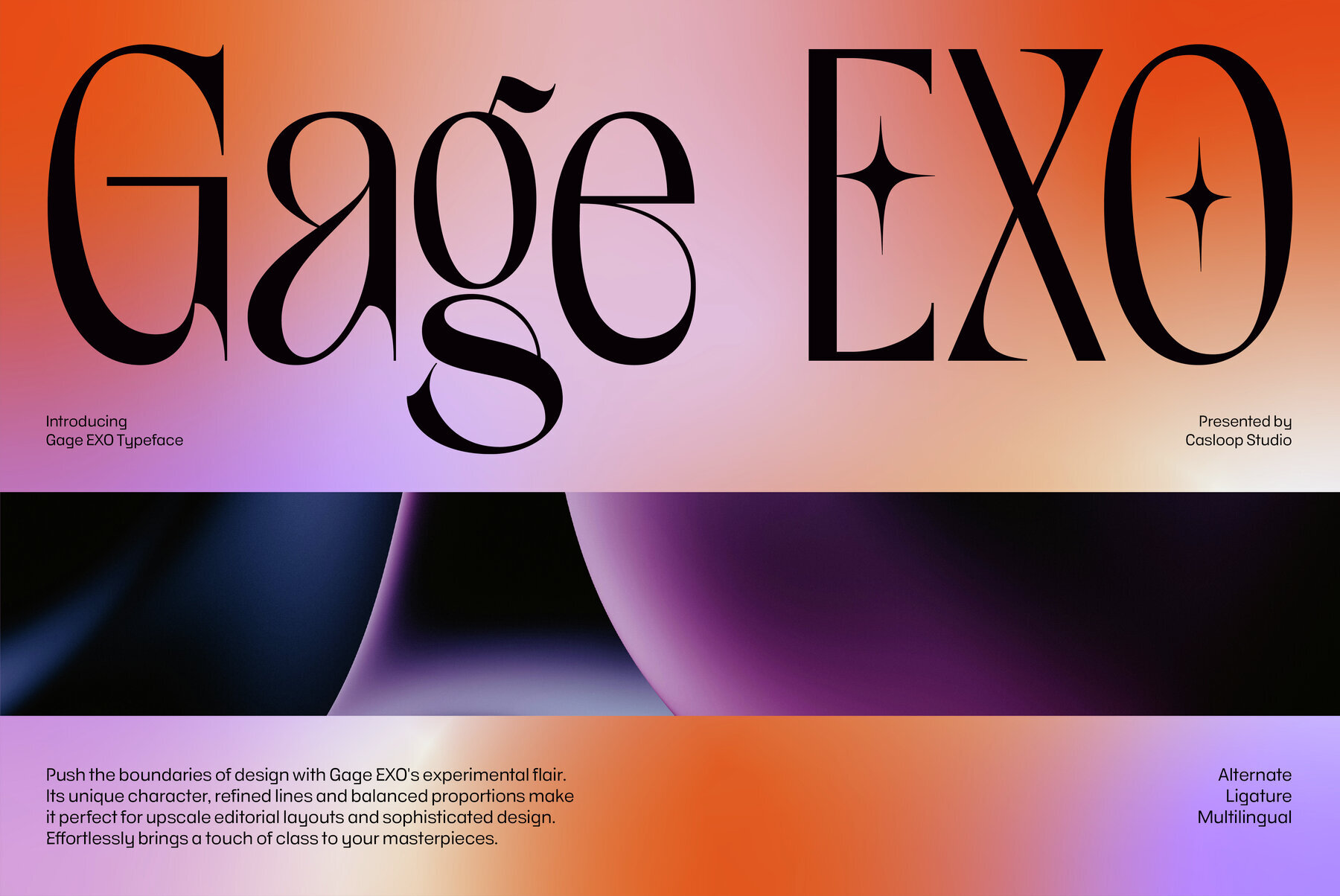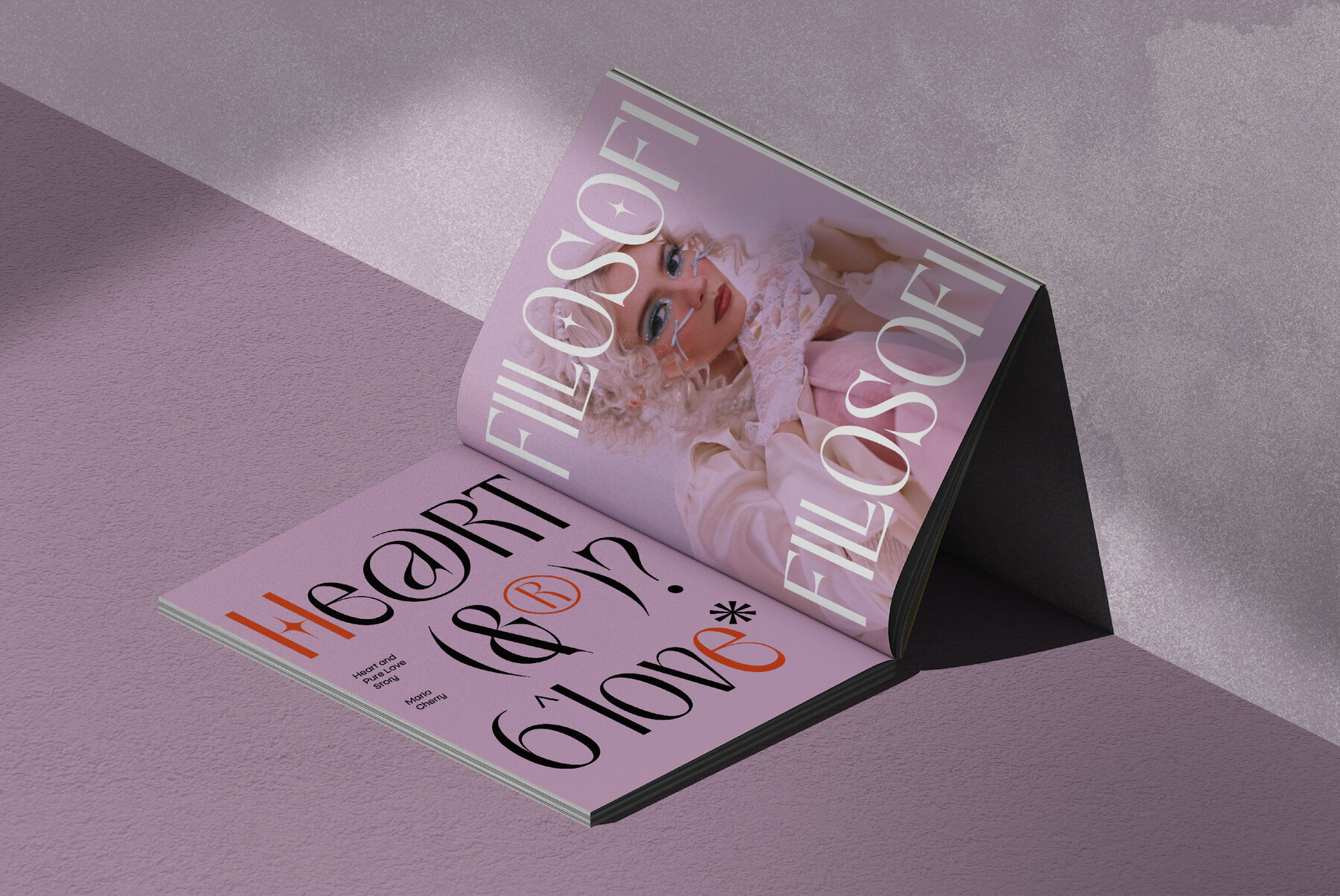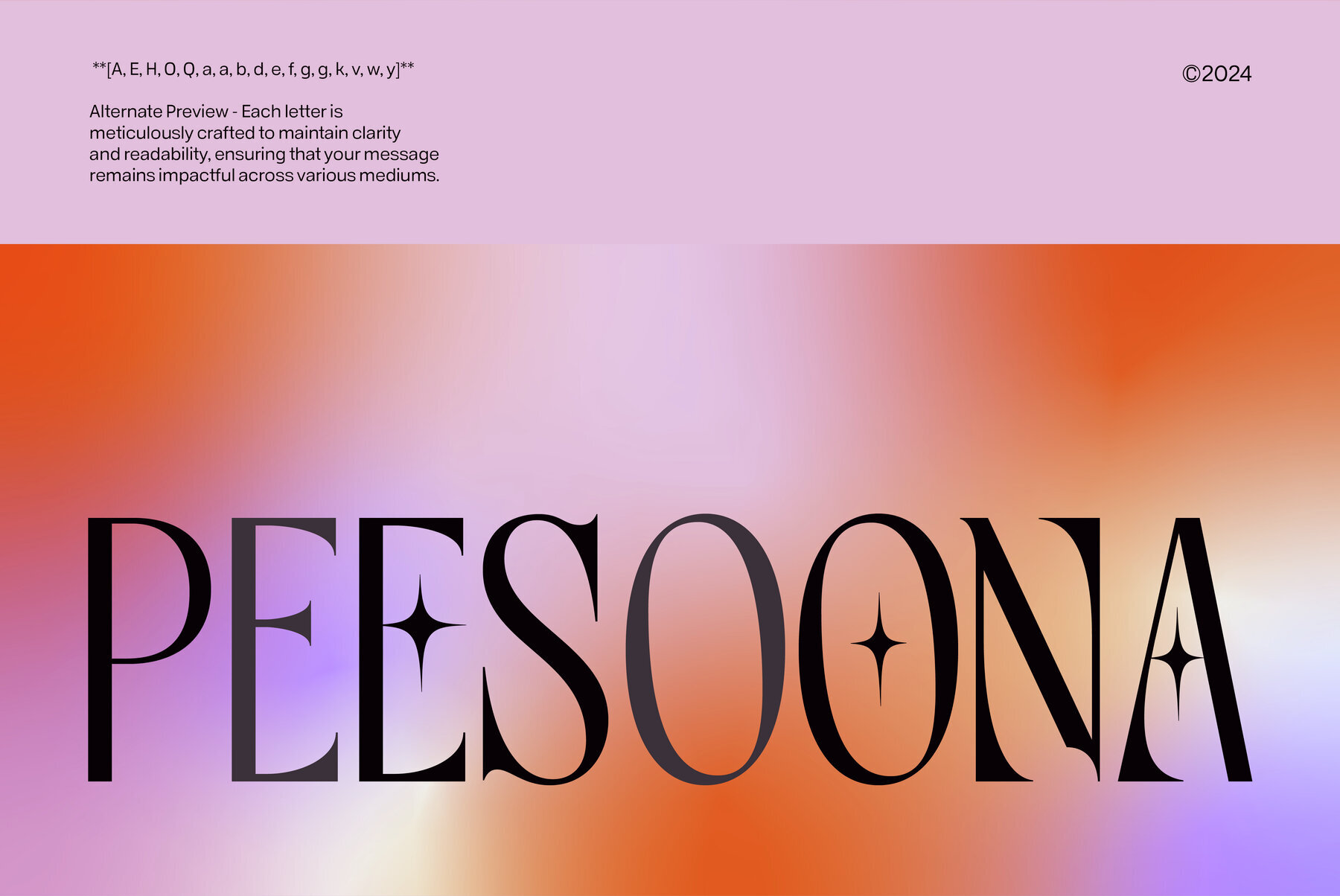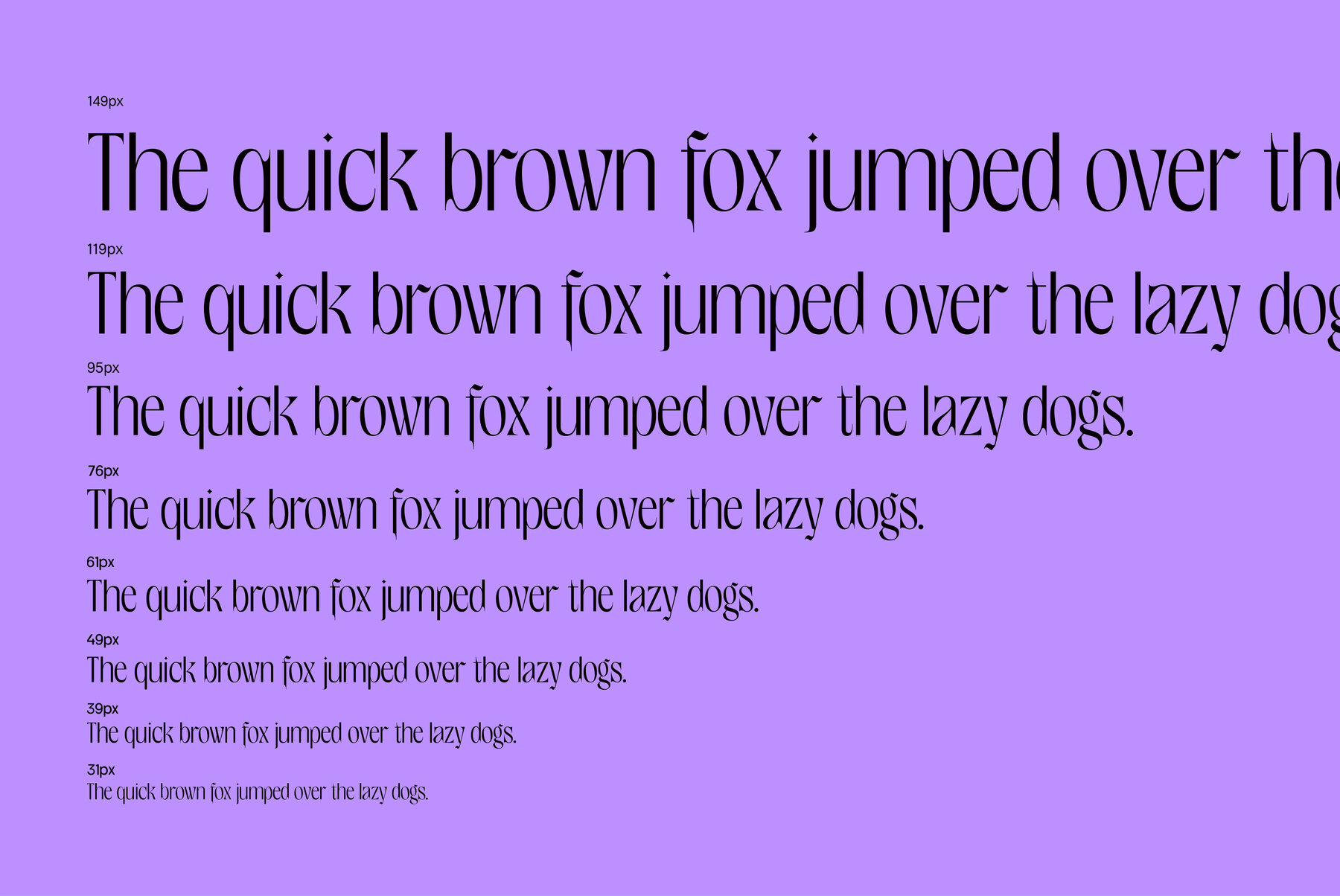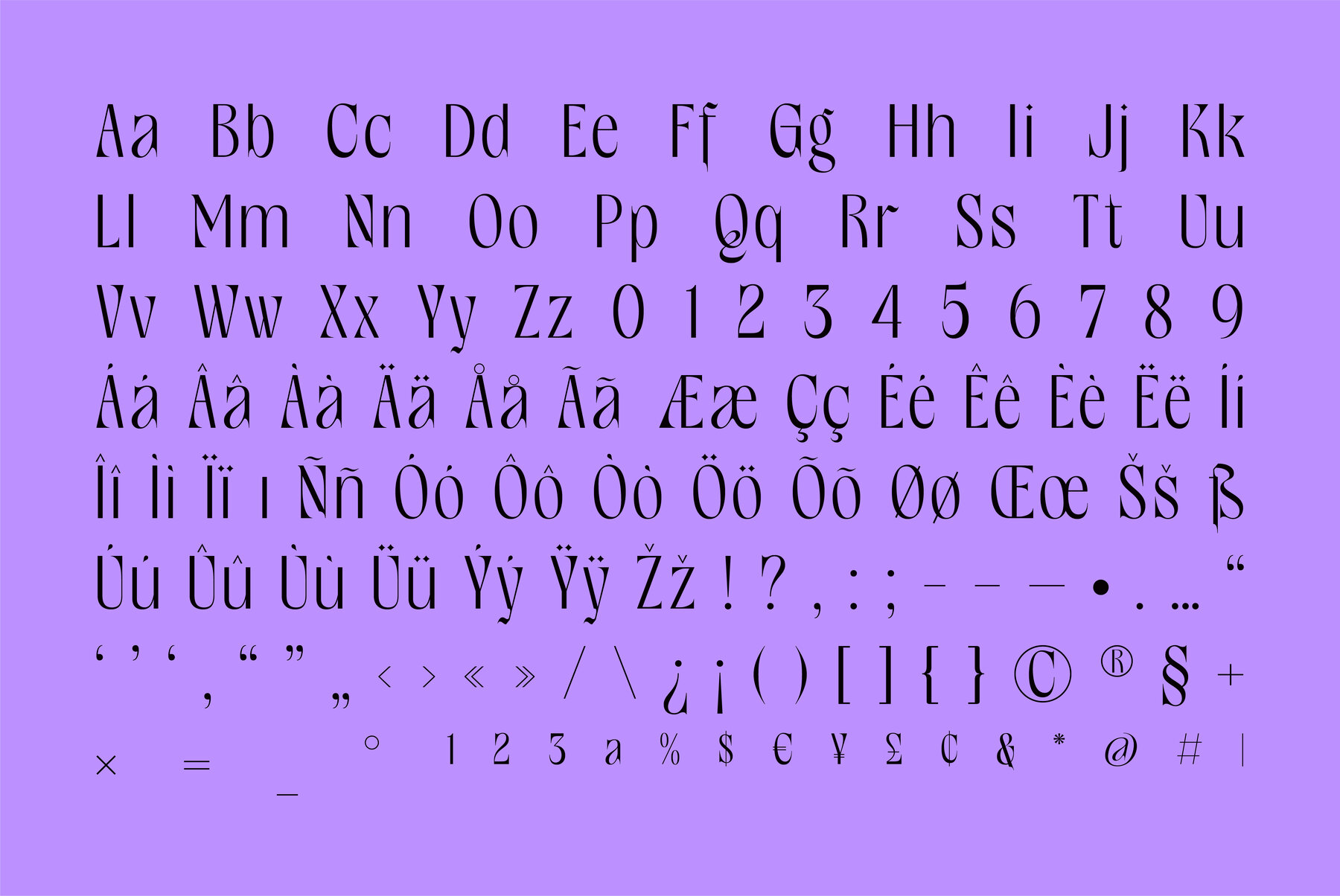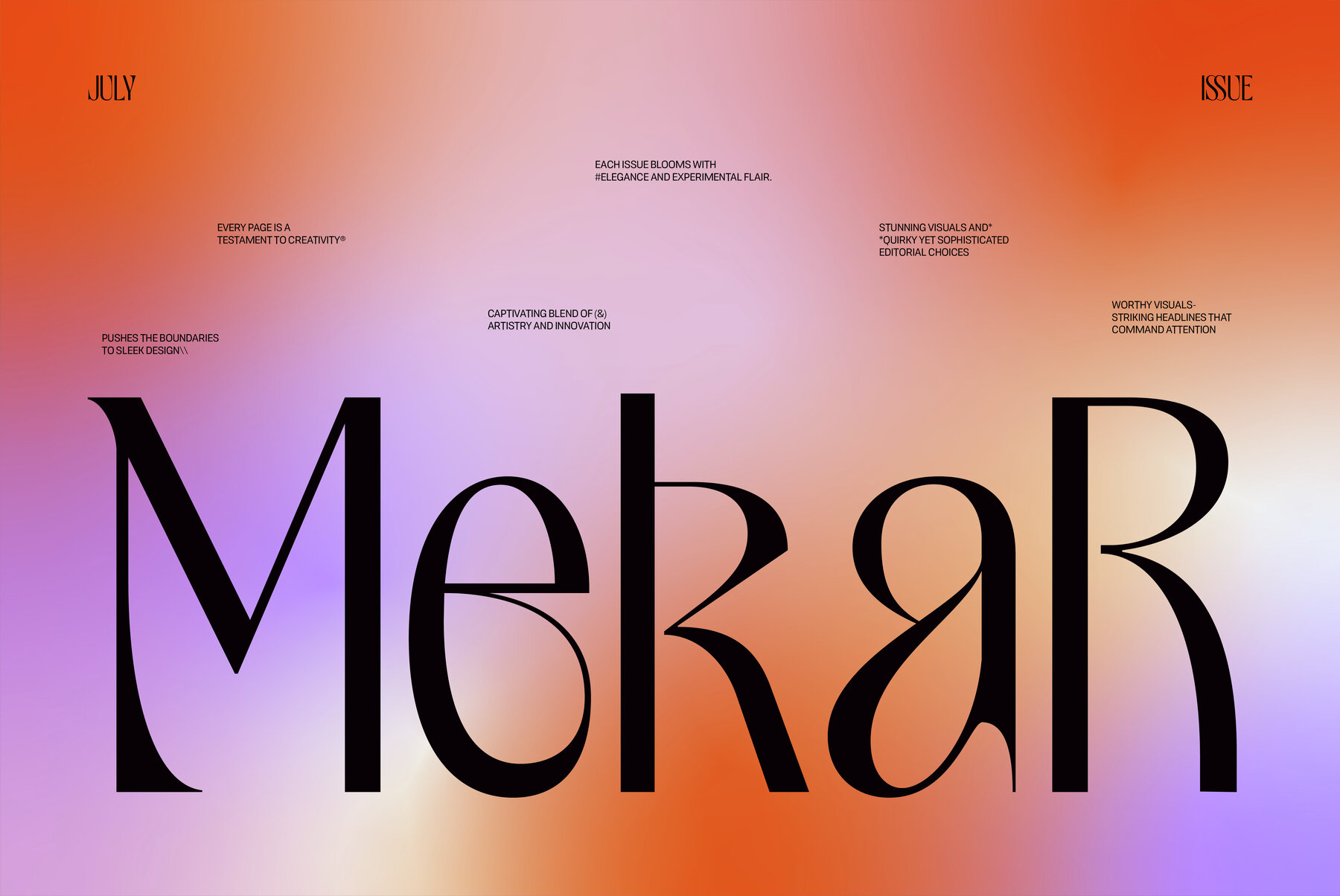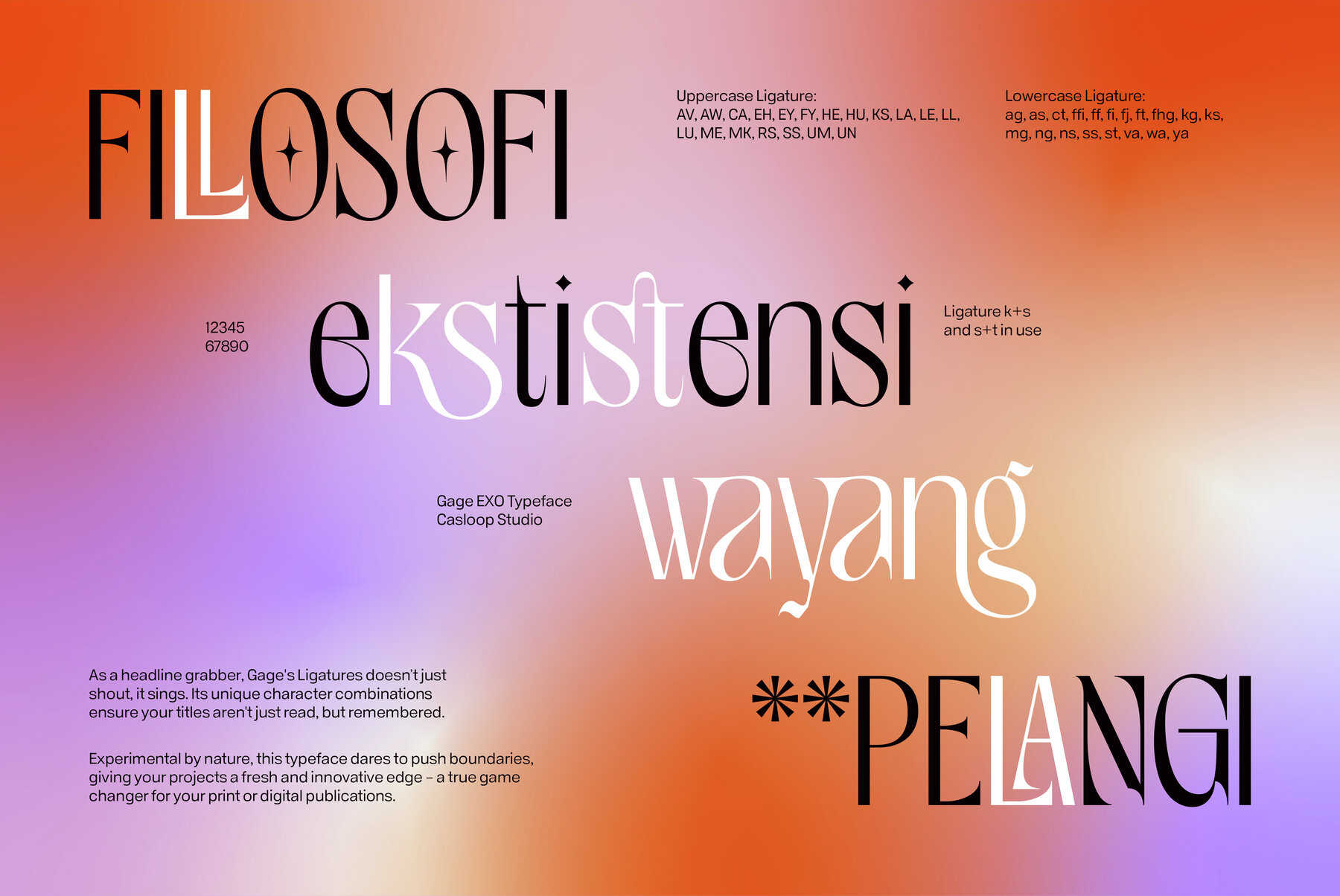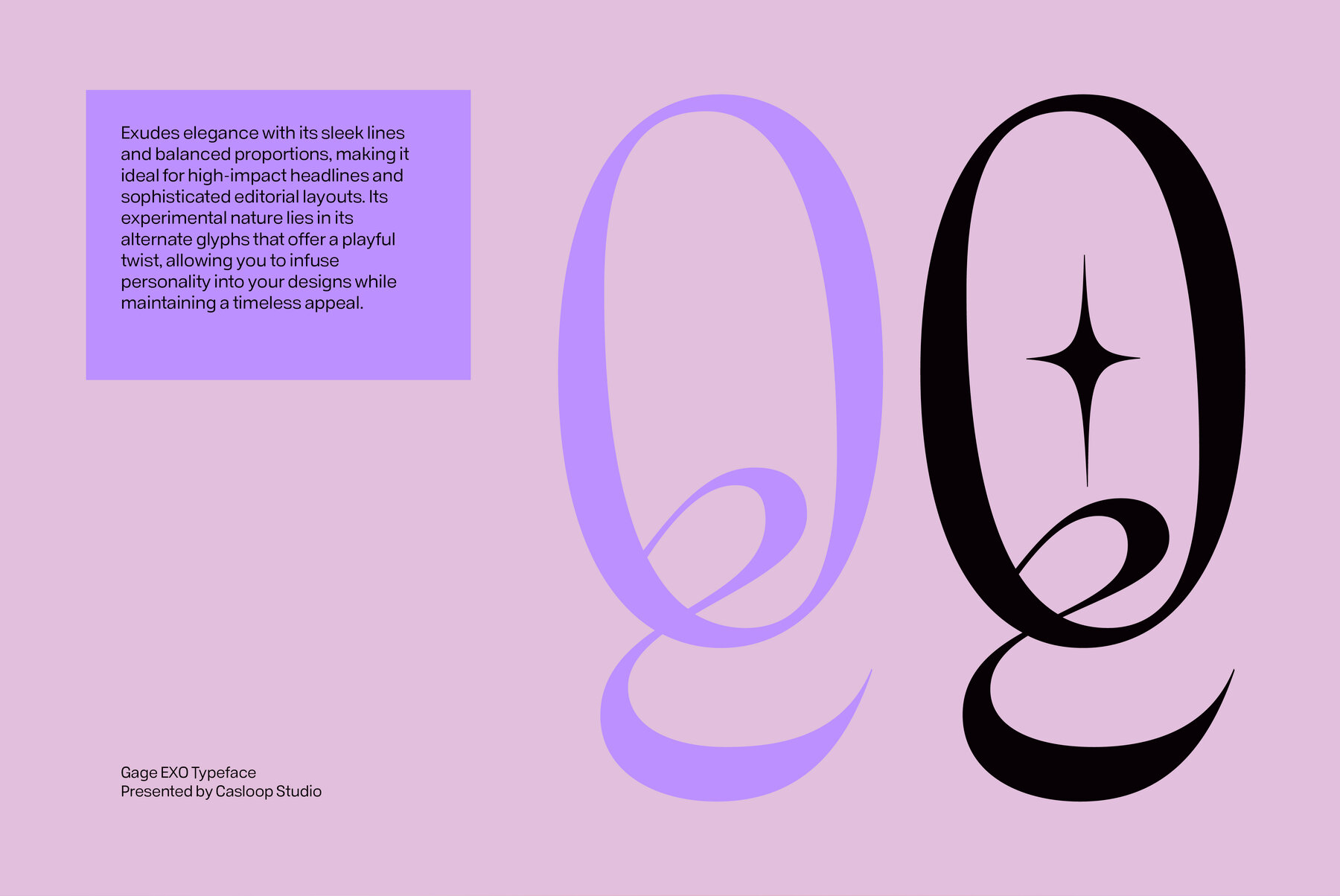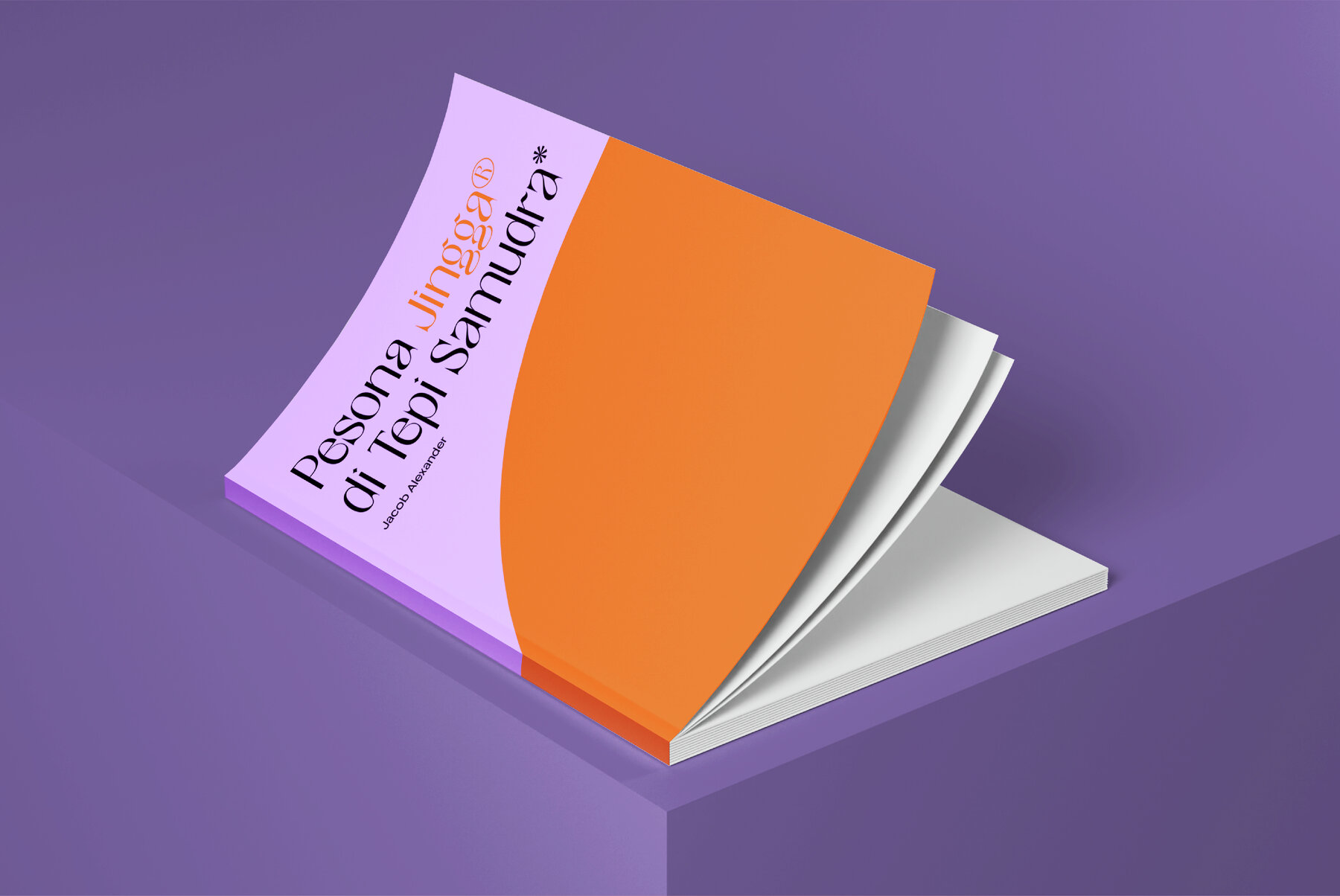
Gage Exo Font
Gage EXO Regular
The Gage EXO font embodies a captivating fusion of vintage allure and contemporary demands. Crafted as a display sans serif, Gage EXO offers a versatility that thrives across editorial creations, posters, websites, and more, lending a distinctive voice to any visual narrative. Its charm lies in blending the graceful elements of Art Nouveau and Art Deco, making it a timeless choice for retro enthusiasts and modern-day creators. Gage EXO is designed to resonate with both the nostalgia of past eras and the fresh outlook of Gen Z. Its ability to infuse elegant sophistication with an experimental edge makes it stand out in headlines, fashion titles, or any creative project. Designers seeking a font that crafts narratives and sets trends in typography will find Gage EXO compelling.Gage EXO: Vintage Elegance Meets Modern Quirk